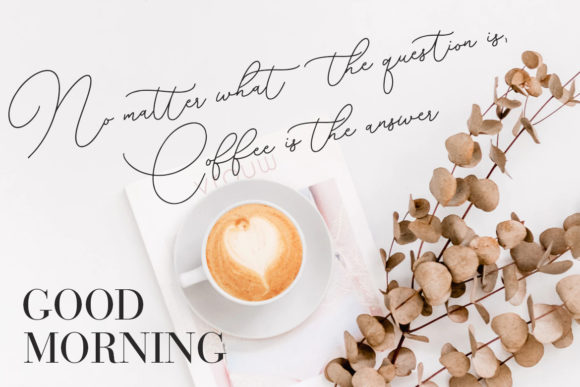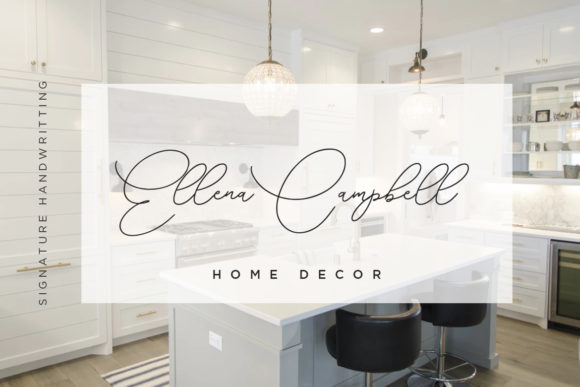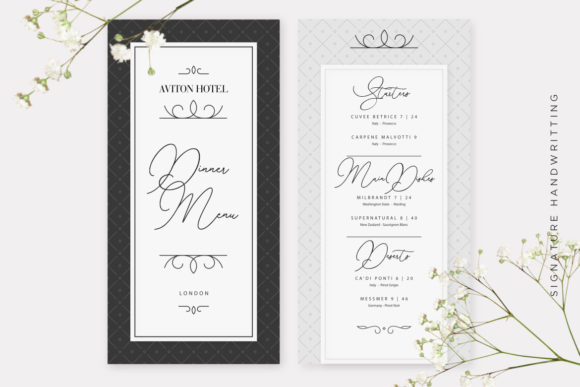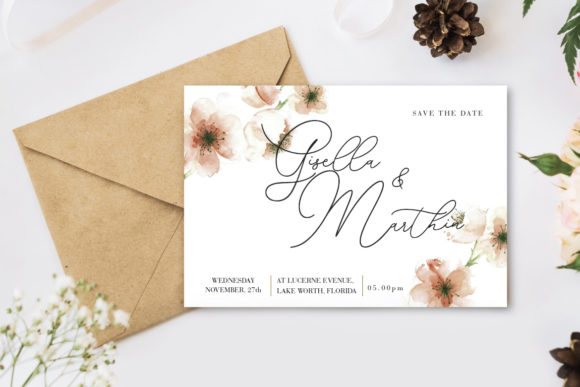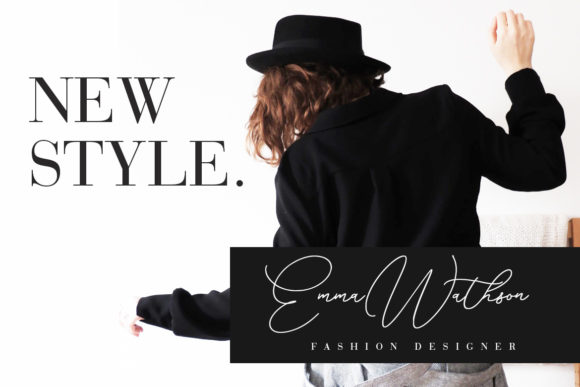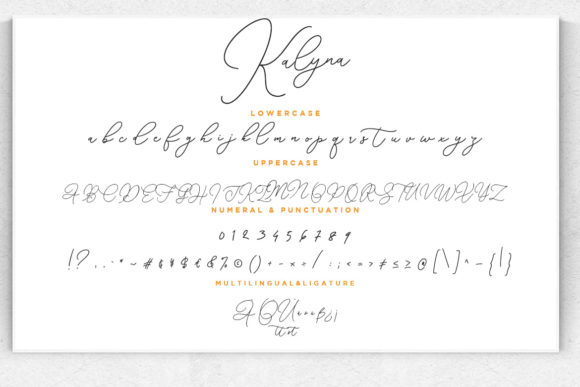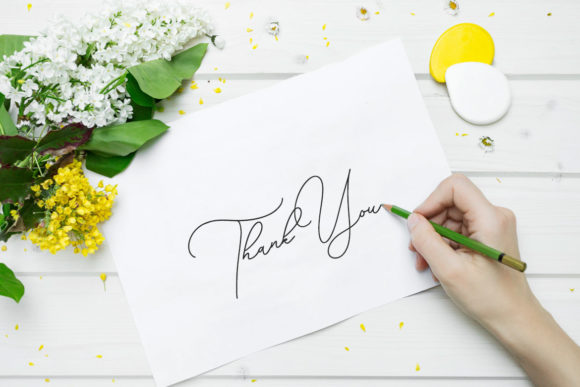
Kalyna Font
About Kalyna Font
Kalyna is a sweet and charming handwritten font with a unique style. Use it to turn any design idea into a true standout!